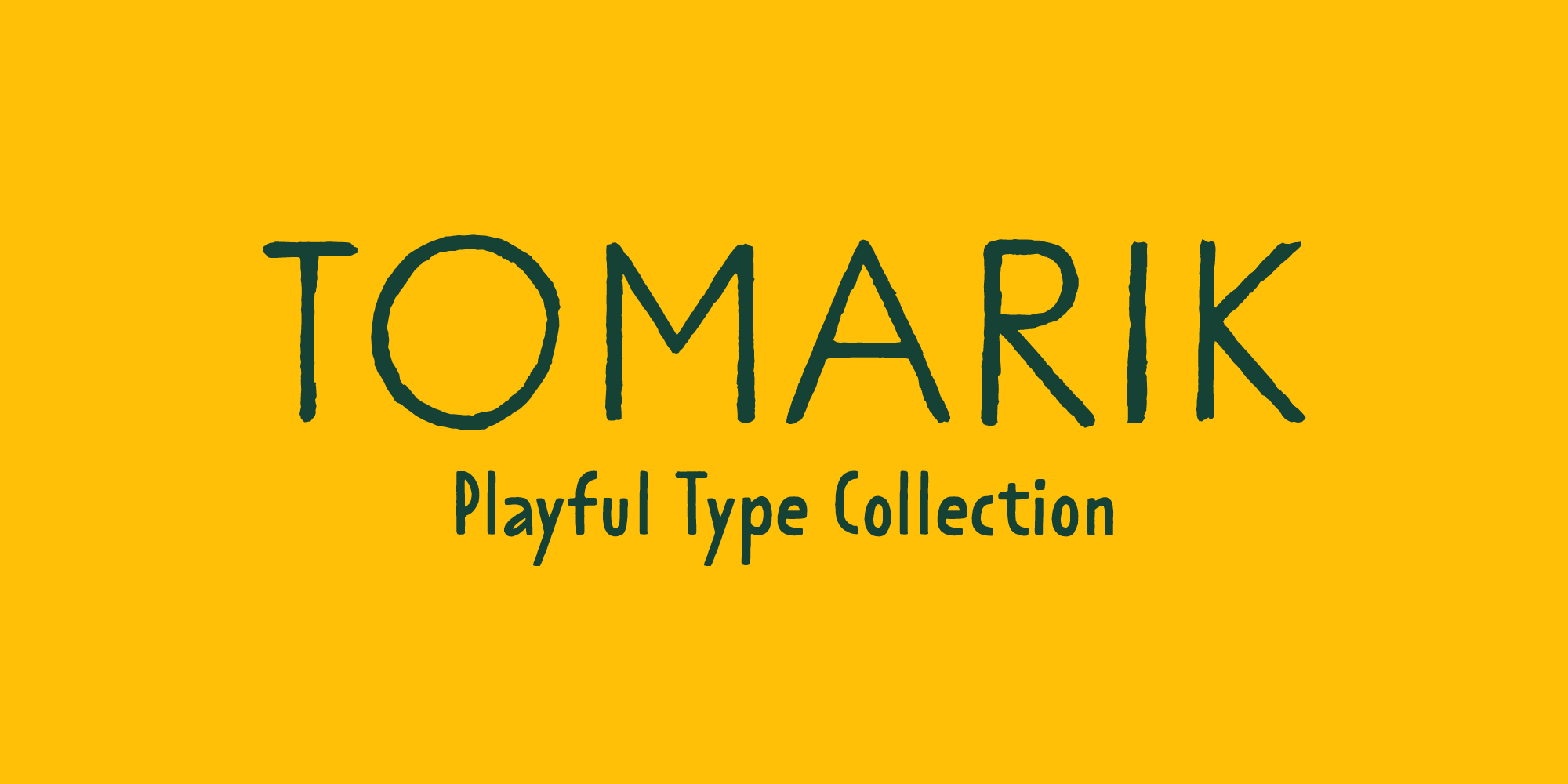
Tomarik Font is ideal for contemporary creative branding, modern artistic projects, innovative design campaigns, progressive marketing materials, cutting-edge visual identity, experimental typography layouts, forward-thinking advertising, dynamic presentation graphics, artistic portfolio design, and sophisticated creative communications. This distinctive typeface creates compelling modern atmosphere in both digital design platforms and premium print applications.
What makes Tomarik Font exciting is its perfect fusion of artistic expression with contemporary design sophistication that creates uniquely engaging visual personality. The font features innovative letterforms with creative character details and modern proportions that reflect artistic vision and design innovation. Its distinctive design establishes an atmosphere of creative intelligence and contemporary sophistication that appeals to design-conscious audiences seeking authentic artistic expression and modern aesthetic quality.
Tomarik Font family includes creative variations: Light, Regular, Medium, Bold, and Display versions, each with artistic alternates and contemporary character sets. Each variant maintains the font's creative integrity while providing designers with innovative options for creating sophisticated typography systems and contemporary communication materials.
This exceptional creative typeface brings authentic artistic credibility to projects requiring contemporary presentation. Whether you're designing creative brands, artistic portfolios, or innovative marketing campaigns, Tomarik Font Free Download delivers outstanding creativity and modern sophistication. The font's contemporary proportions and artistic details ensure memorable visual impact across various creative applications.
Creative agencies and artistic brands recognize how Tomarik Font perfectly balances artistic innovation with commercial functionality. Its contemporary foundation combined with creative sophistication makes it essential for artistic and design-focused projects. Download today and create your designs with this exceptionally innovative contemporary typography.